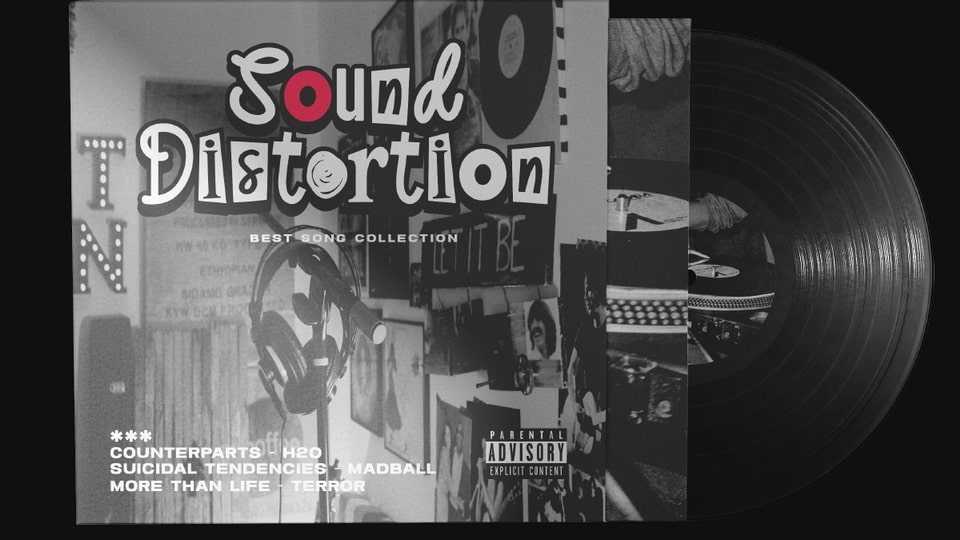
Download Sound Distortion font, a mixed typeface inspired by retro collage art and clipping of old newspapers. Feel the old school taste with Sound Distortion font with mixed letter styles and combined into a chaotic collage style.